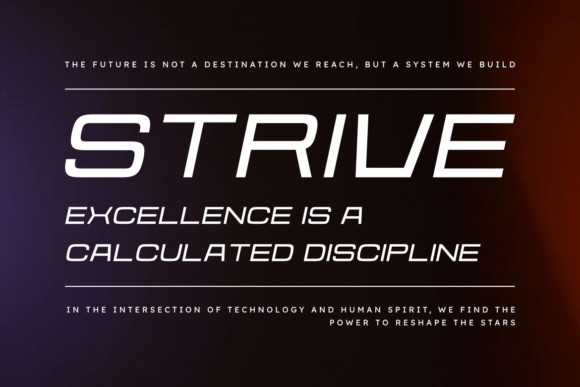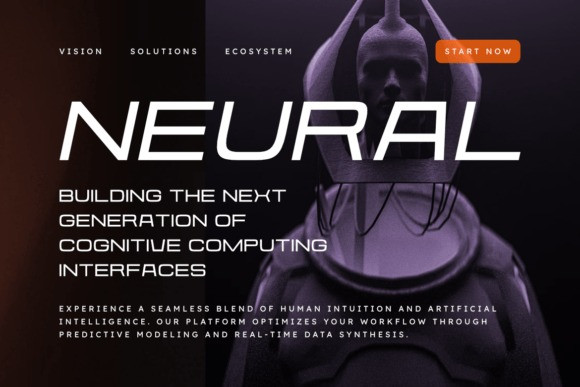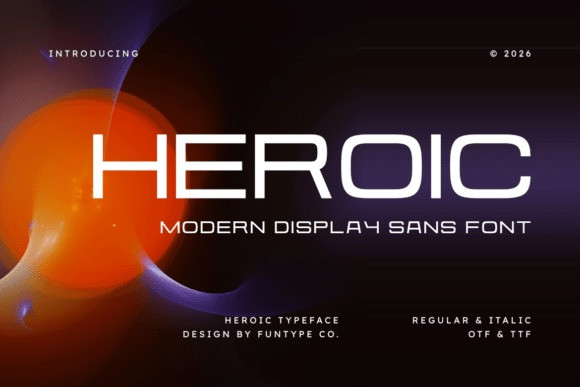
Heroic Font
Heroic Font – a strong and commanding modern sans display font, intricately designed to encapsulate technological prowess and serious impact. This font showcases a sleek geometric architecture and razor-sharp lines, becoming the ideal instrument for creating sturdy headlines, tech-savvy logos, contemporary advertising, and powerful cinema-themed posters. Heroic’s assertive design guarantees your visual concepts a distinct, sophisticated, and forward-thinking aura.